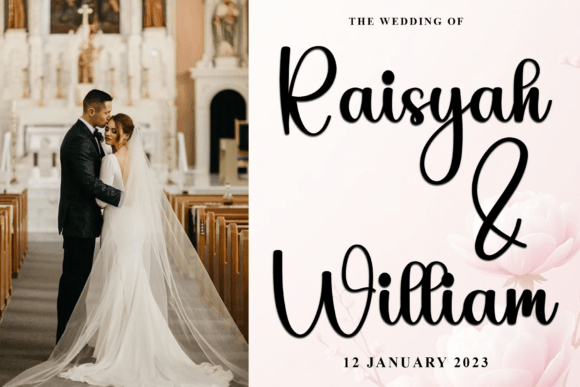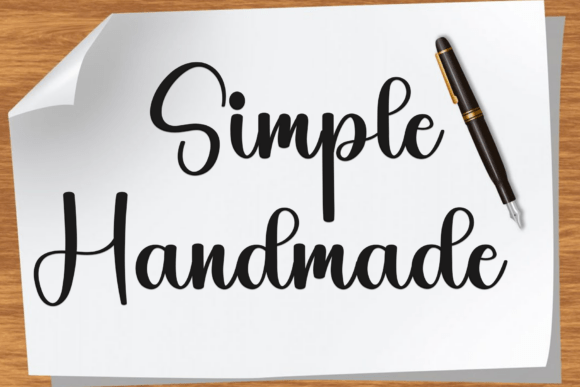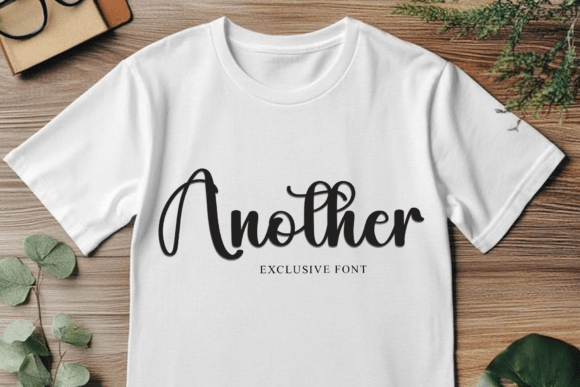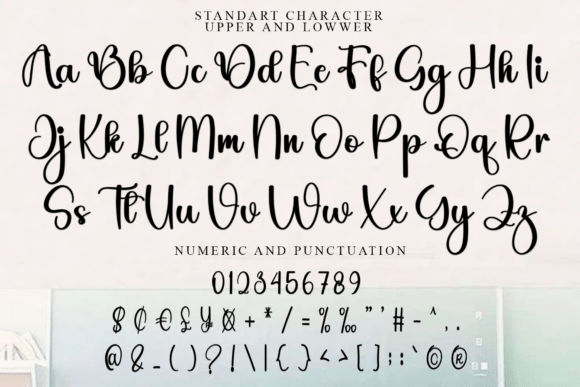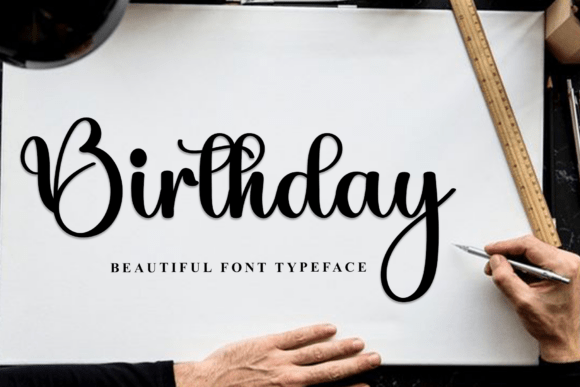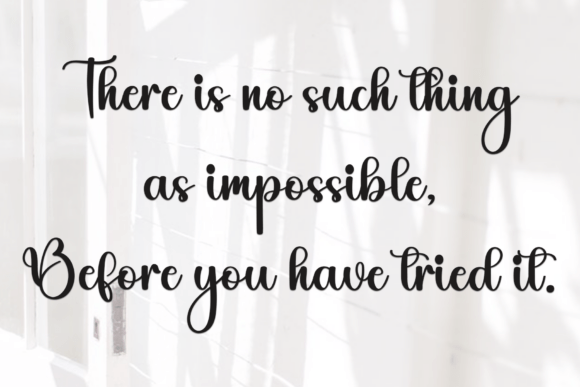
A Warm Welcome from the Beach
You know that feeling when you’re brainstorming ideas for a summer project and suddenly, a burst of creativity hits you? The sun is shining, the waves are crashing, and your mind is filled with possibilities. That’s exactly the vibe that the Beach Font embodies – a carefree, playful spirit that’s perfect for capturing the essence of your next design project.
Beach Font is a charming, hand-drawn font that’s designed to add a touch of warmth and friendliness to your designs. With its round, playful strokes, it’s ideal for personal projects, invitations, and social media graphics. Whether you’re a seasoned designer or just starting out, Beach Font is a valuable addition to your toolkit, allowing you to bring a unique and creative touch to your work.
Key Features of Beach Font
- Size: The font comes in a single weight, making it suitable for a wide range of applications, from body text to headings.
- Unique Characteristics: Beach Font features a unique blend of organic and geometric elements, giving it a distinctive, hand-drawn feel.
- Language Support: Beach Font supports a wide range of languages, including Latin, Cyrillic, and Greek scripts, making it a versatile choice for global designs.
- Scalability: Beach Font is designed to be highly scalable, allowing it to be used effectively in various sizes, from small text to large headings.
Beach Font Review
Overall, I think Beach Font is a solid choice for projects that need a beachy vibe. Here are some things that work well:
- ✨ The font’s relaxed, casual feel is perfect for projects like summer promotions, beach-themed websites, or outdoor event invitations.
- ✨ The Beach Font is highly legible, even at smaller font sizes, which is a must for any font.
- ✨ The font has a nice, consistent weight, making it easy to use in a variety of design contexts.
- ⚠️ The font’s design, while great for casual projects, may not be suitable for more formal or professional designs.
- ⚠️ Some users may find the font’s weight to be a bit too light, which can make it harder to read in certain situations.
- ⚠️ Beach Font doesn’t come in as many weights or styles as some other popular fonts, which can limit its versatility.
Overall, I think Beach Font is a great choice for designers who need a fun, relaxed font for their projects. While it may not be the best choice for every design scenario, it’s a solid addition to any font collection.
Tips: Use Beach Font for titles and headings to add a touch of coastal charm. Experiment with different font sizes and colors to create visual interest.
Tips: Use Beach Font for watercolor-inspired designs or to add a sense of whimsy to your illustrations.
Tips: Use Beach Font for presentations or documents related to travel, beach, or outdoor activities.
Beach Font is perfect for:
- Beach-themed designs and invitations.
- Travel and outdoor-related projects.
- Watercolor-inspired art and illustrations.
Remember to experiment with different font sizes, colors, and styles to get the most out of Beach Font!